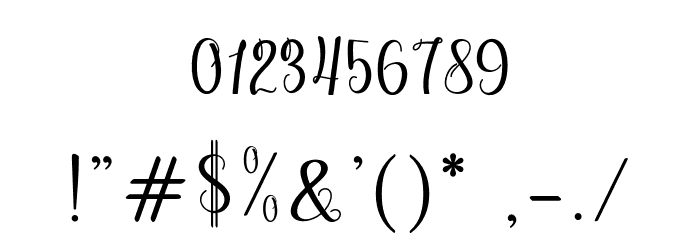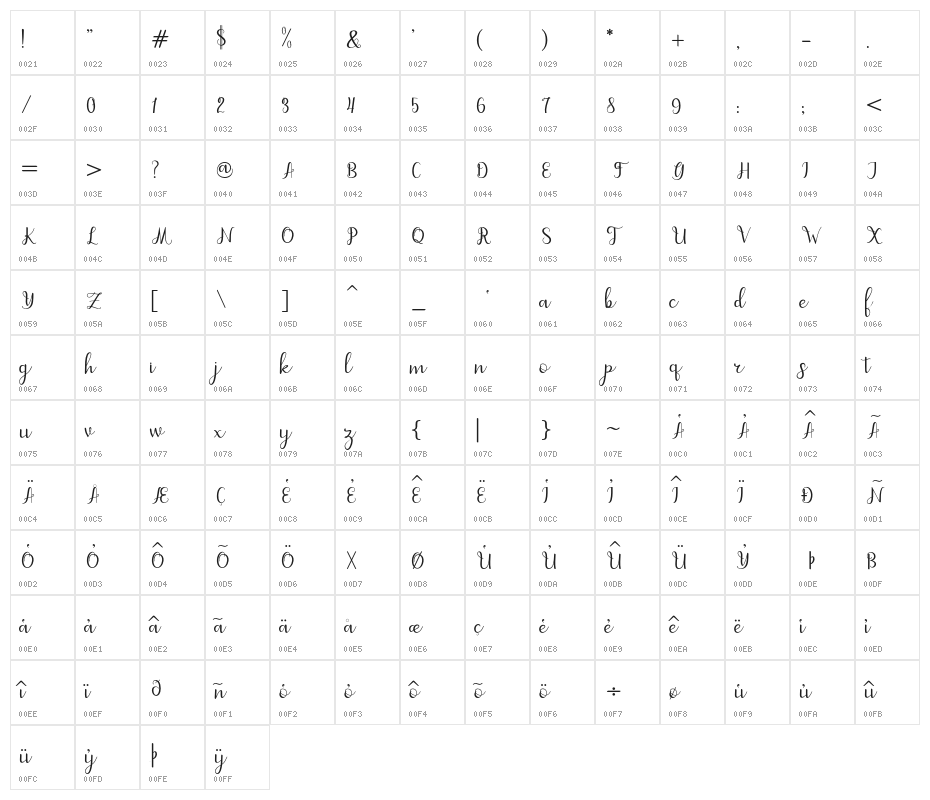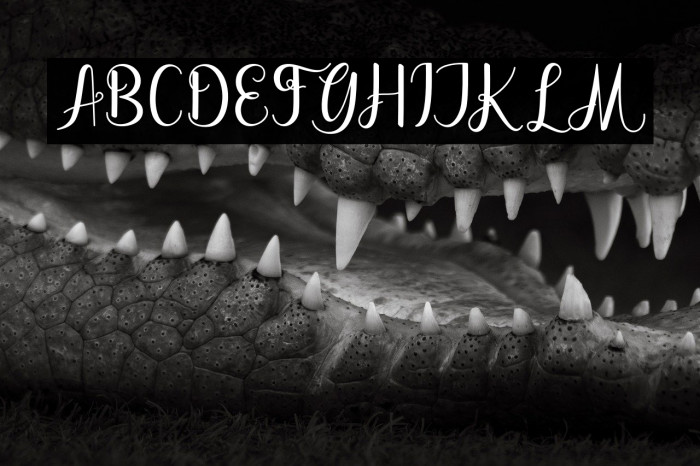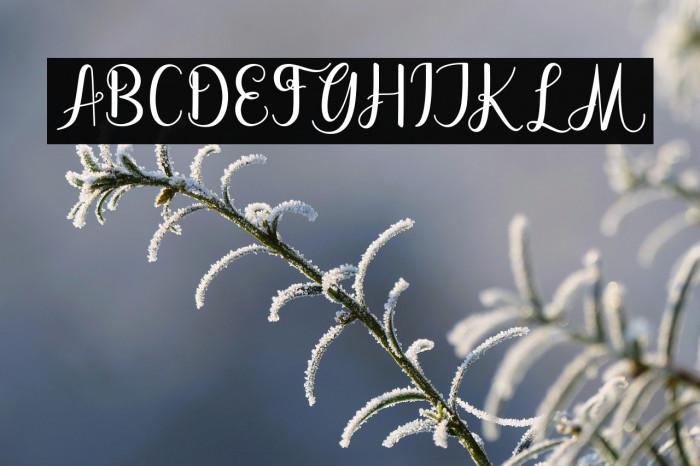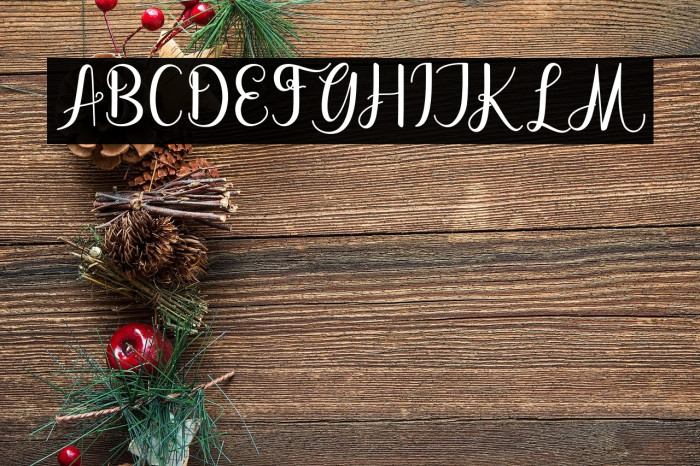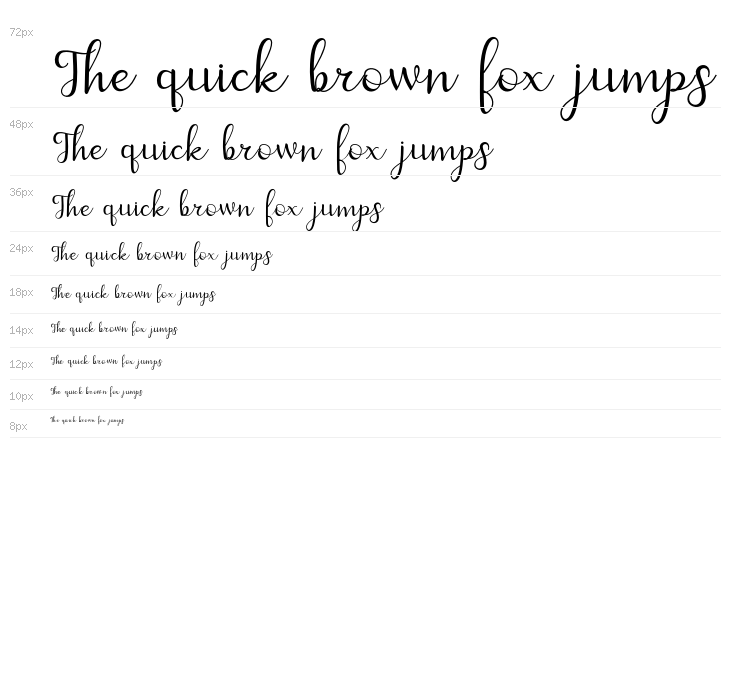
dahliascript Font
dahliascript Description
This elegant script font features a flowing, cursive style with graceful loops and swashes. The uppercase letters are characterized by their tall, slender forms and decorative flourishes, while the lowercase letters maintain a consistent, smooth flow. The numerals are styled to match the overall aesthetic, with a slight slant and gentle curves. Special characters are thoughtfully designed to complement the script, adding a touch of sophistication. The font's delicate strokes and artistic flair make it ideal for projects that require a personal, handwritten touch.
| Use Case | Logos, Invitations, Personal Correspondence |
| Proposed Projects | Ideal for wedding invitations, greeting cards, branding, and elegant stationery. |